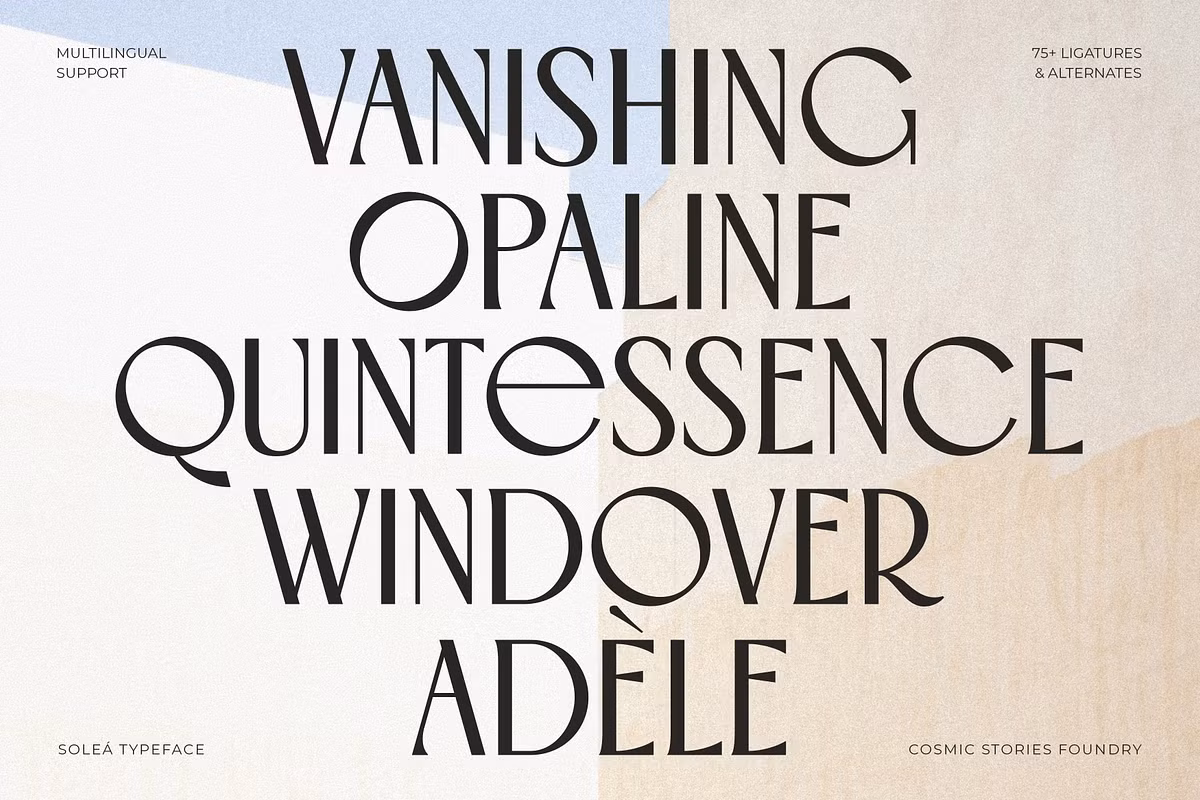
Soleá: Modern Sans Serif Typeface for Elegant Branding and Design
Soleá is a simple yet stylish font that makes things look great. It’s a modern sans serif typeface that is easy on the eyes. The people who made it wanted to create something that looks fancy and works well in many different situations. Whether you’re making a logo, a magazine, or just a sign, Soleá is a good choice because it’s elegant and easy to read. It’s perfect for when you want to make a good impression. Soleá is versatile, which means it can be used in many different ways, and it always looks nice. It’s a great font for anyone who wants to make their designs look classy and sophisticated.
Design Style of Soleá
Soleá is a typeface that really stands out from the rest. It’s a sans serif font, but it has a certain elegance to it that’s hard to ignore. The way it combines high-contrast forms with delicate curves is really something special. And then there are the little details that you notice when you look closer – they add a level of sophistication that makes every piece of writing look unique. What’s really interesting about Soleá is that it manages to be both modern and classic at the same time. It’s a timeless font that still feels contemporary, which is no easy feat. The result is a typeface that’s perfect for anyone who wants to add a touch of elegance to their writing, without looking like they’re trying too hard.
Soleá’s simple design makes it easy to read and understand, whether it’s used in print or digital form. The way it balances light and dark elements grabs your attention without being too much. This makes it a great choice for a variety of projects, from high-end fashion to minimalist packaging, as it adds a touch of elegance to any design. Its clean look ensures that your message comes across clearly, making it perfect for creating a strong visual identity.
Character Sets and Ligatures
One of the standout features of the Soleá typeface is its comprehensive character set. Soleá includes over 55 elegant ligatures and stylistic alternates that provide designers with the tools to craft visually unique typographic compositions. This extensive variety allows for expressive flair, enabling you to personalize your designs in a way that resonates with your brand’s identity.
The way letters connect and the extra details in the font are meant to make the text look smooth and interesting. When you use these features, you can create a system of typography that is not just useful, but also has a lot of character. This is especially great for things like high-end branding or fancy stationery, where you want to make a good impression – and that’s exactly what Soleá’s font can help you do.
Use Cases for Soleá
Soleá is really flexible, which makes it perfect for lots of different design projects. Let’s take a look at some of the best ways to use it:
- Luxury Branding: The elegance of Soleá makes it a perfect choice for luxury brands looking to convey sophistication and style in their visual identity.
- Fashion Editorials: In the fast-paced world of fashion, Soleá can elevate editorial layouts, providing a modern yet timeless touch that resonates with readers.
- Packaging Design: Soleá is great for packaging that’s simple and clean. Its neat lines and details make products look good on store shelves.
- Modern Web Design: In a digital context, Soleá’s legibility and aesthetic appeal can enhance user experience.
- High-End Stationery: For invitations, business cards, and other stationery, Soleá adds a touch of elegance that leaves a lasting impression.
Pairing Suggestions for Soleá
When you’re looking to create a design that’s cohesive and visually appealing, pairing Soleá with other typefaces that complement it can really make it stand out. This can help bring out the elegance of Soleá while still making sure the text is easy to read. Here are some suggestions for typefaces that go well with Soleá:
- Serif Pairing: Combine Soleá with a classic serif typeface like Playfair Display for a sophisticated contrast.
- Geometric Sans Serif: Pair Soleá with a geometric sans serif like Poppins to create a modern, clean look.
- Script Font: For a more personal touch, consider pairing Soleá with a script font like Great Vibes.
Soleá comes in a range of formats, like OTF, TTF, WOFF, and WOFF2, which means it can be used with lots of different design programs and apps. It also supports lots of languages, including Western, Central, and Eastern European ones, so you can use it in different countries and situations. This makes Soleá a great choice for designers who work on projects that need to reach people who speak different languages.
Soleá is a sleek and modern sans serif font that brings a touch of elegance to any design. It’s a versatile tool that can be used in a variety of projects, from high-end branding to fashion magazines and simple packaging. What makes Soleá special is its refined contrast, beautiful ligatures, and stylish alternates, which allow designers to create visually stunning typographic systems.
Whether you’re working on a luxury brand, a fashion editorial, or a minimalist packaging design, Soleá strikes the perfect balance between function and personality. It’s a font that can elevate your designs and turn them into beautiful stories. With its unique features, Soleá is sure to make a statement in your next project, and its simplicity and elegance make it a great choice for anyone looking to add a touch of sophistication to their work.